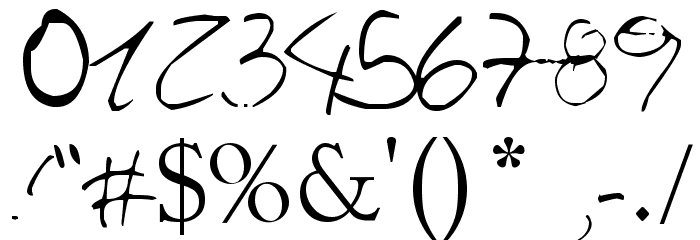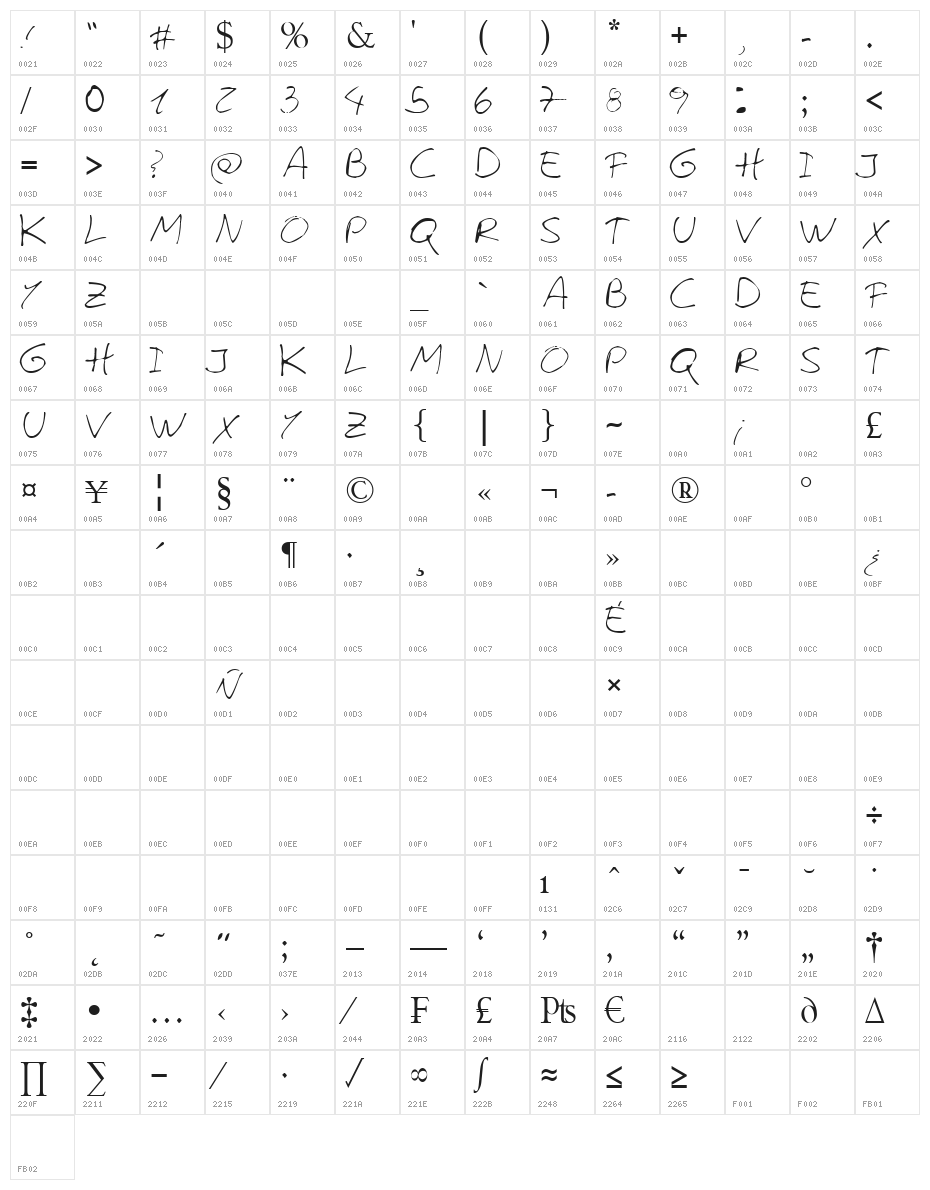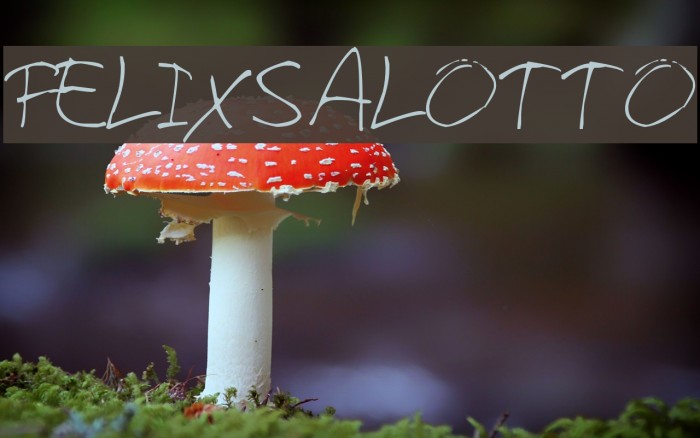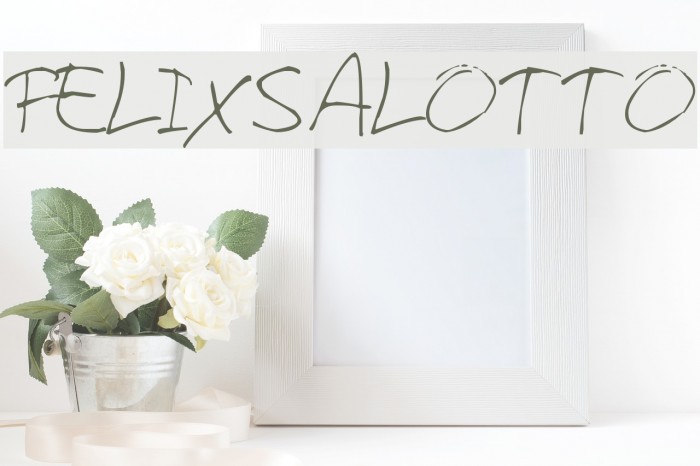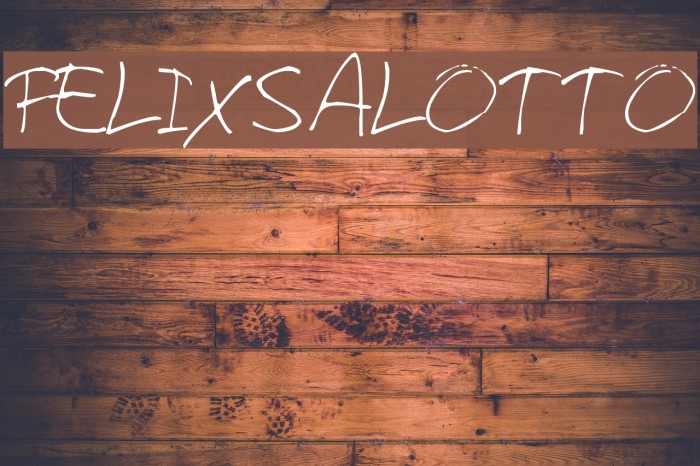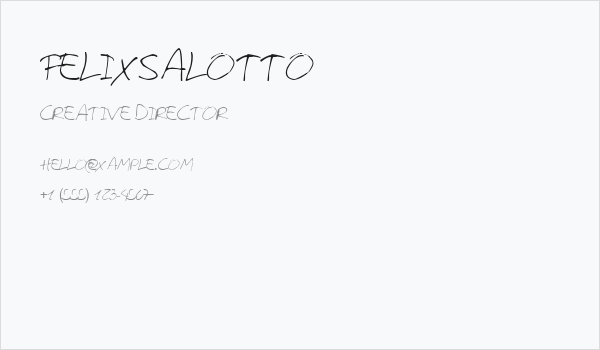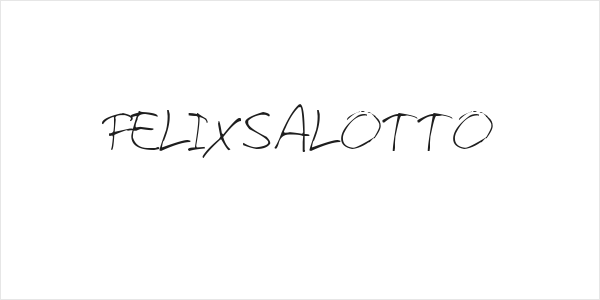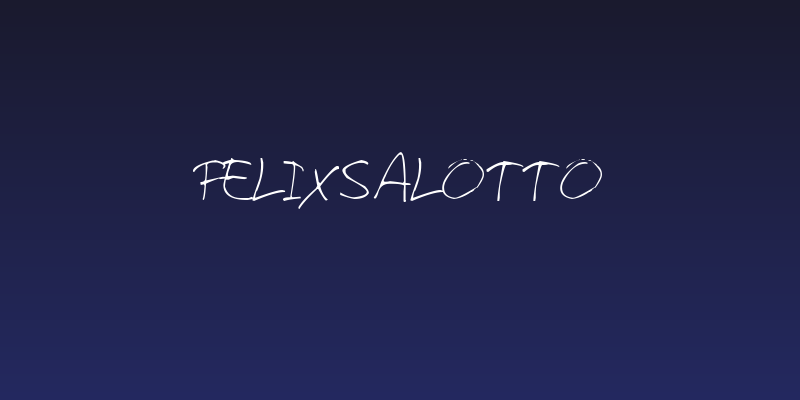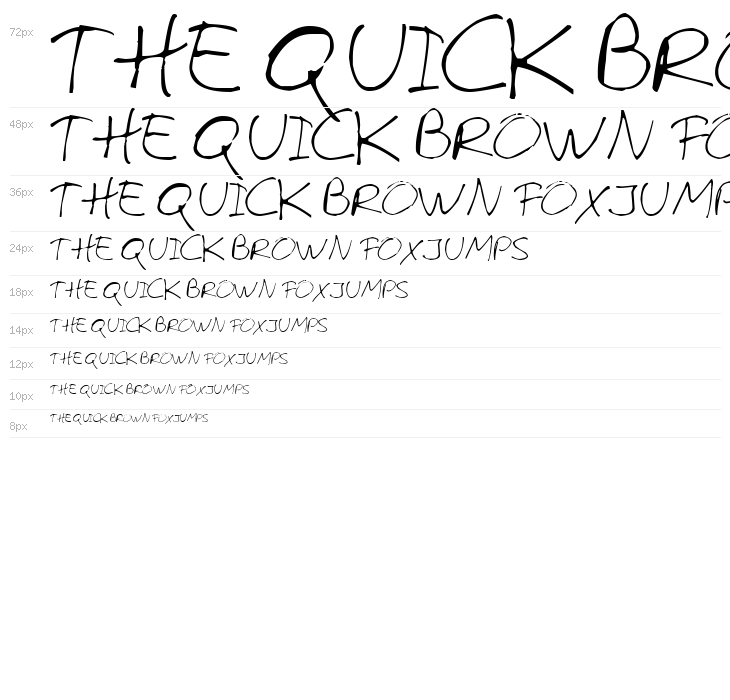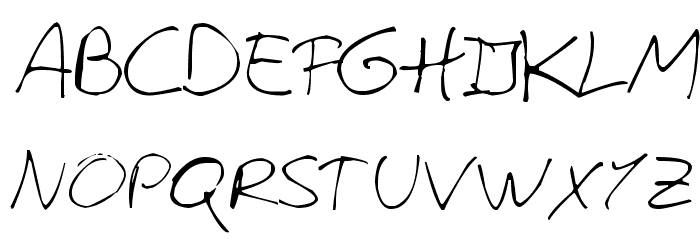
felixsalotto Font
felixsalotto Description
This font features a dynamic and expressive handwritten style, characterized by its fluid and irregular strokes that mimic the natural flow of handwriting. The uppercase and lowercase letters maintain a consistent style, with a playful and slightly chaotic appearance. The numerals and special characters follow the same aesthetic, adding to the overall cohesive look. The font's unique charm lies in its imperfect lines and varying stroke widths, which give it a lively and personal touch. This style is perfect for projects that require a human touch or a casual, informal vibe.
| Proposed Projects | Ideal for greeting cards, personal branding, creative projects, and informal invitations. |